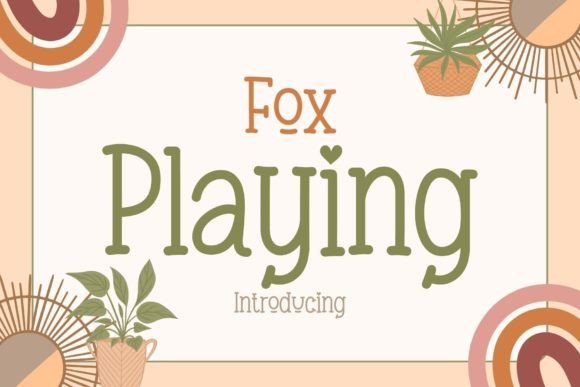
Introducing Fox Playing Font, the ultimate choice for all your creative endeavors! This charming handwritten serif typeface is designed to captivate and inspire, bringing a delightful touch to any project you embark on. Created by the talented Fox7, this font is a true masterpiece that effortlessly combines cuteness and simplicity.
With its clean lines and easy-to-read design, Fox Playing Font is a must-have for anyone looking to make a statement. Whether you're crafting inspirational quotes to uplift your audience, designing captivating headings to grab attention, writing engaging blogs to captivate readers, or creating striking logos to establish your brand identity, this font is the perfect companion.
Imagine the impact of your words when beautifully crafted with Fox Playing Font. Its captivating charm instantly draws in the eyes and hearts of your audience, leaving a lasting impression. Every stroke and curve of this serif font is carefully crafted to evoke emotion and create a sense of connection.
But Fox Playing Font isn't just about aesthetics. It's also incredibly versatile and functional. Its easy-to-read design ensures legibility across various mediums, from print to digital. Whether you're printing invitations for a special event or designing graphics for your website, this font will always deliver a flawless and professional look.
Looking to add a touch of playfulness to your designs? Look no further than Fox Playing Font. Its handwritten style brings a sense of warmth and personality to your projects, making them feel personal and relatable. Let your creativity run wild as you explore the endless possibilities this font offers.
Don't settle for ordinary fonts when you can have extraordinary. Fox Playing Font is the perfect blend of style, functionality, and charm. It's time to elevate your creations and stand out from the crowd. Download Fox Playing Font today and unlock the key to captivating designs that leave a lasting impression.